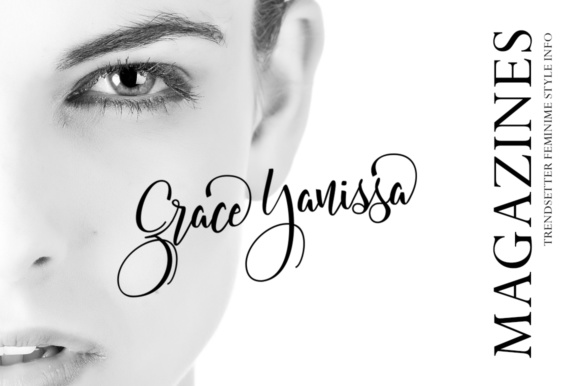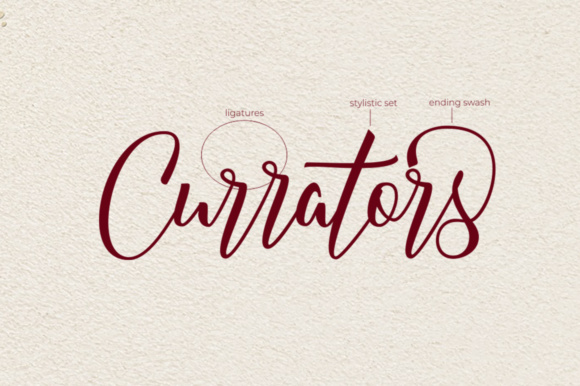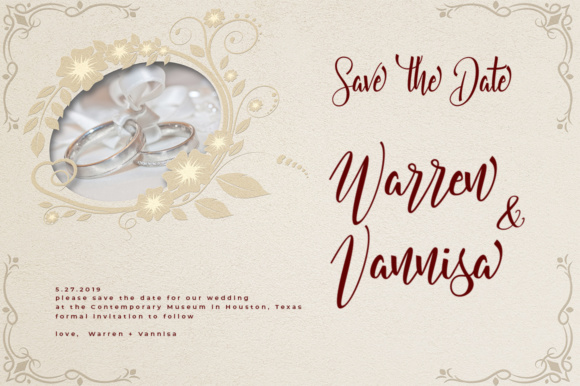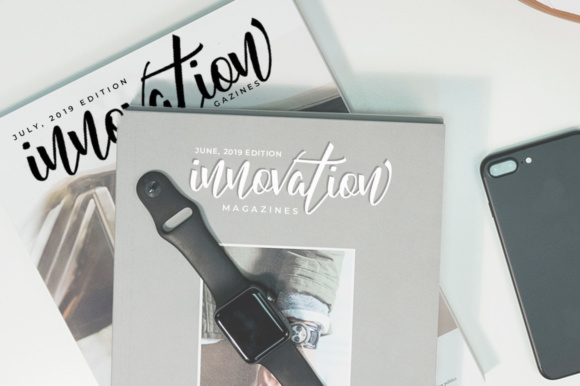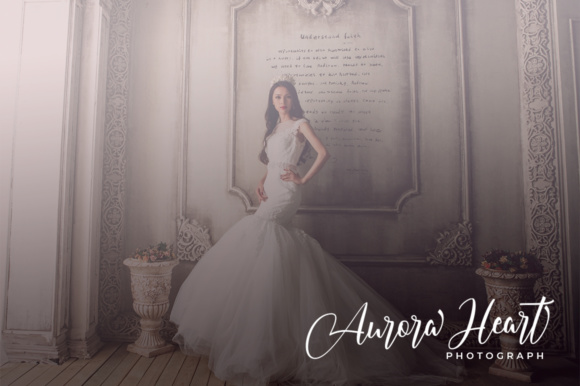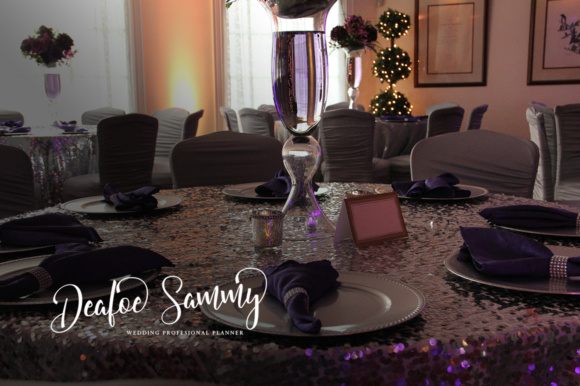
Currators Script Font: Elevate Your Designs with Elegance and Sophistication
In the world of typography, few fonts manage to capture the essence of elegance and sophistication as effectively as the Currators Script Font. This beautiful, handwritten font with a modern twist has been making waves in the design community, and for good reason. Its unique blend of classic charm and contemporary flair makes it an ideal choice for a wide range of design projects, from vintage logos and fashion labels to custom card headers, badges, and food packaging designs.
The Currators Script Font: A Modern Take on Handwritten Typography
The Currators Script Font is more than just a collection of letters; it’s an expression of style and creativity. Its modern twist on traditional handwritten typography sets it apart from more conventional fonts, offering designers a fresh and exciting alternative for their projects. Whether you’re looking to create a luxurious brand identity, a stunning packaging design, or a memorable logo, Currators Script Font provides the perfect blend of elegance and modernity.
Key Features of Currators Script Font
- Unique Letter Connections: One of the standout features of the Currators Script Font is its intricate and beautiful letter connections. These connections not only add a touch of sophistication to your designs but also create a sense of fluidity and continuity, making your text look more cohesive and visually appealing.
- Versatility: The Currators Script Font is incredibly versatile, making it suitable for a wide range of design projects. Whether you’re working on a vintage logo, a fashion label, custom card headers, badges, or food packaging designs, this font can help you achieve the desired aesthetic.
- Modern Twist: Unlike traditional script fonts, Currators boasts a modern twist that sets it apart. This modernity ensures that your designs look contemporary and relevant, even when using a script font that might otherwise feel classic or traditional.
- Elegance and Sophistication: The font exudes an air of elegance and sophistication, making it perfect for designs that require a touch of luxury or high-end appeal. Its elegant strokes and beautiful connections can elevate your designs, making them stand out in a crowded marketplace.
Applications of Currators Script Font
The Currators Script Font’s versatility means it can be used in a variety of design projects. Here are some of the most popular applications:
- Vintage Logos: Add a touch of nostalgia and charm to your vintage logos with the Currators Script Font. Its classic appeal, combined with a modern twist, makes it perfect for brands looking to evoke a sense of heritage and tradition.
- Fashion Labels: Fashion is all about style and elegance, making the Currators Script Font a natural fit for fashion labels. Use it to create stunning brand identities that exude luxury and sophistication.
- Custom Card Headers: Whether you’re designing wedding invitations, birthday cards, or any other type of custom card, the Currators Script Font can add a touch of elegance and personalization.
- Badges: Create eye-catching badges for events, products, or services with the Currators Script Font. Its unique connections and modern appeal make it perfect for creating memorable badges.
- Food Packaging Designs: The Currators Script Font can also be used to create beautiful and appetizing food packaging designs. Its elegance and sophistication can help make your products stand out on store shelves.
Tips for Using Currators Script Font Effectively
To get the most out of the Currators Script Font, consider the following tips:
- Pair with Complementary Fonts: While the Currators Script Font is beautiful on its own, pairing it with complementary fonts can enhance its appeal. Choose fonts that complement its modern and elegant style to create visually appealing text combinations.
- Experiment with Colors: The Currators Script Font looks stunning in a variety of colors. Don’t be afraid to experiment with different color schemes to find the one that best suits your design.
- Adjust Letter Spacing: Adjusting the letter spacing can significantly impact the look and feel of your text. Experiment with different spacings to achieve the desired effect, whether you’re going for a more compact look or a more airy feel.
| Font Name | Currators Script Font |
| Author | akrtype |
The Currators Script Font is a versatile and elegant font that can elevate your designs to new heights. Its unique blend of classic charm and modern appeal makes it perfect for a wide range of projects, from vintage logos and fashion labels to custom card headers, badges, and food packaging designs. By incorporating the Currators Script Font into your design arsenal, you can create stunning and memorable designs that capture the essence of elegance and sophistication.